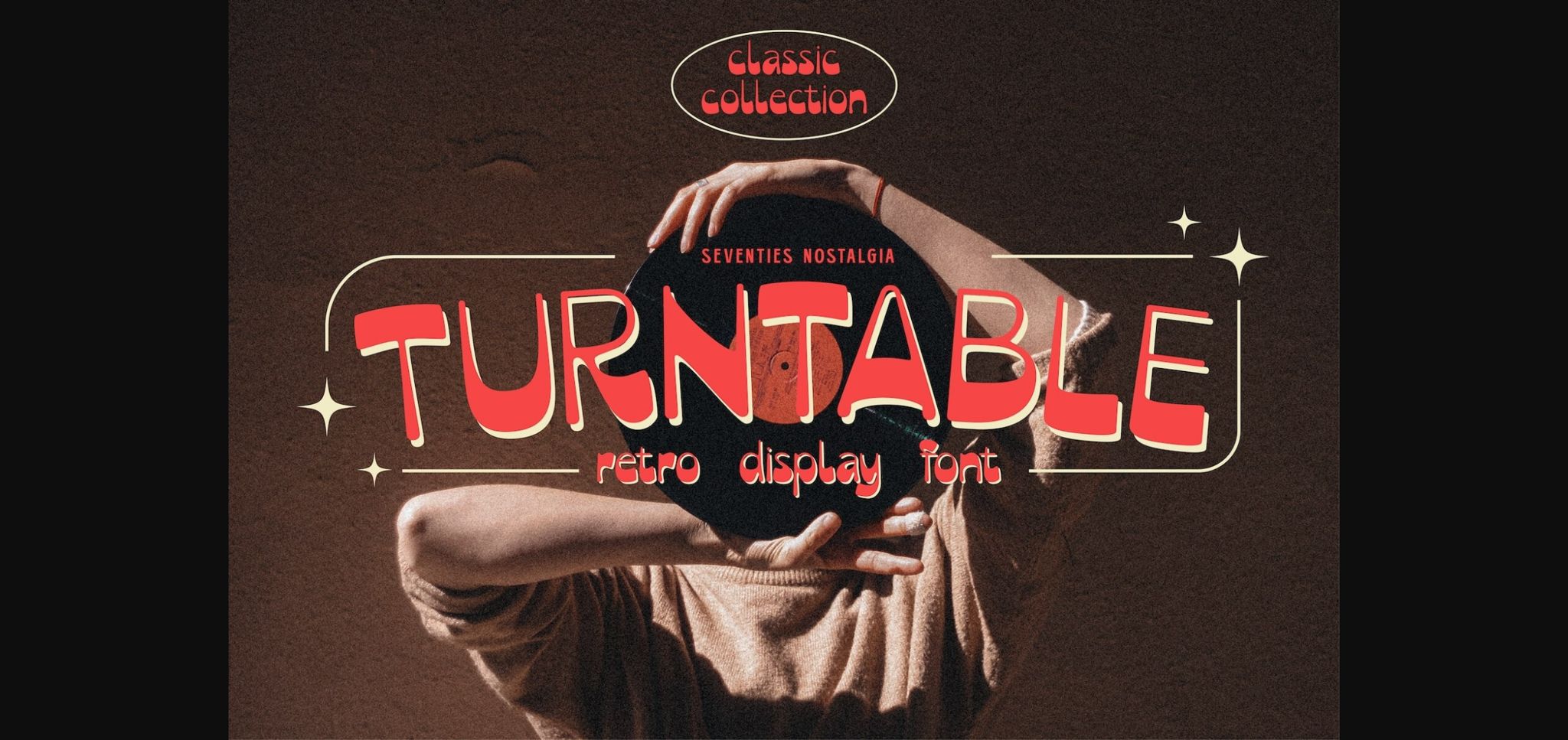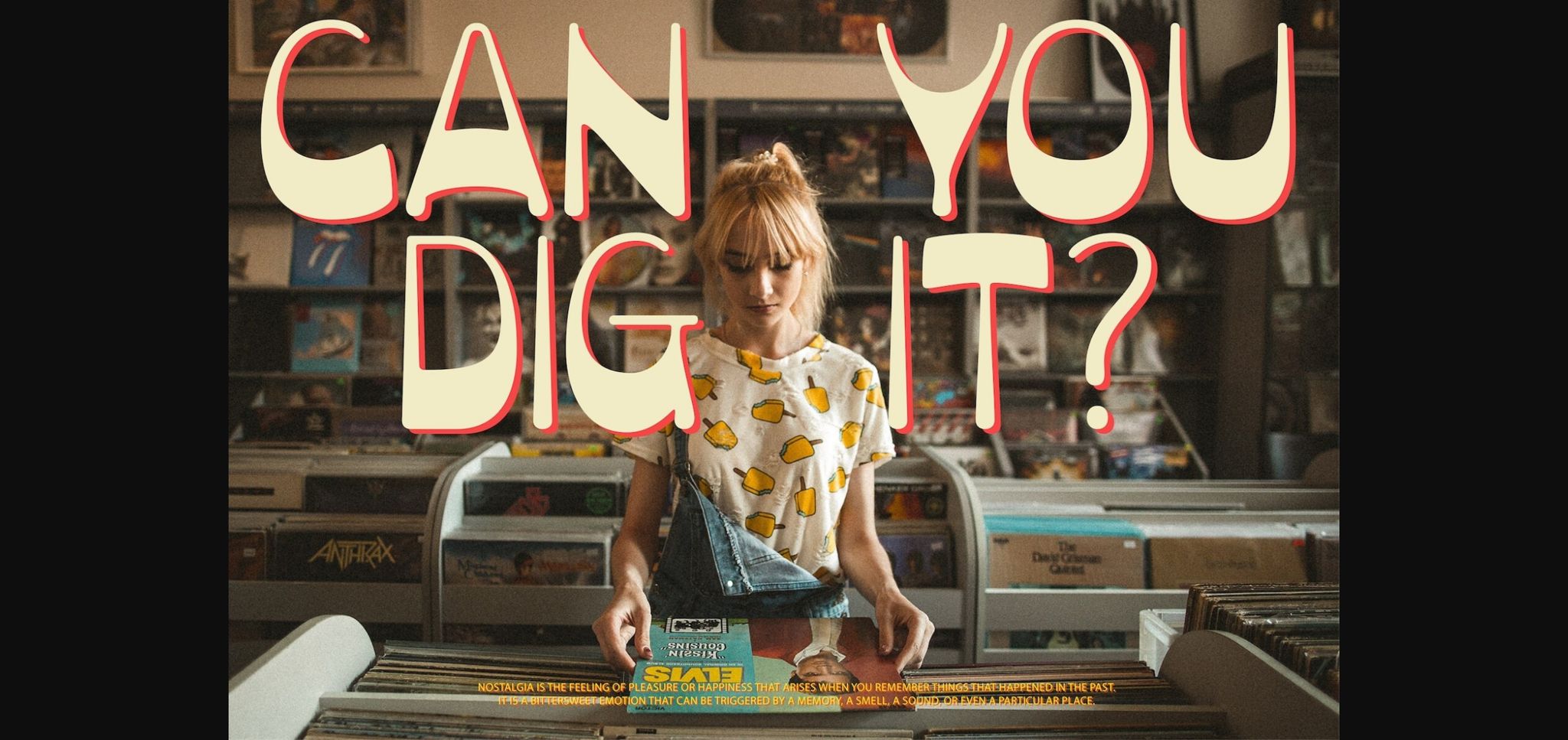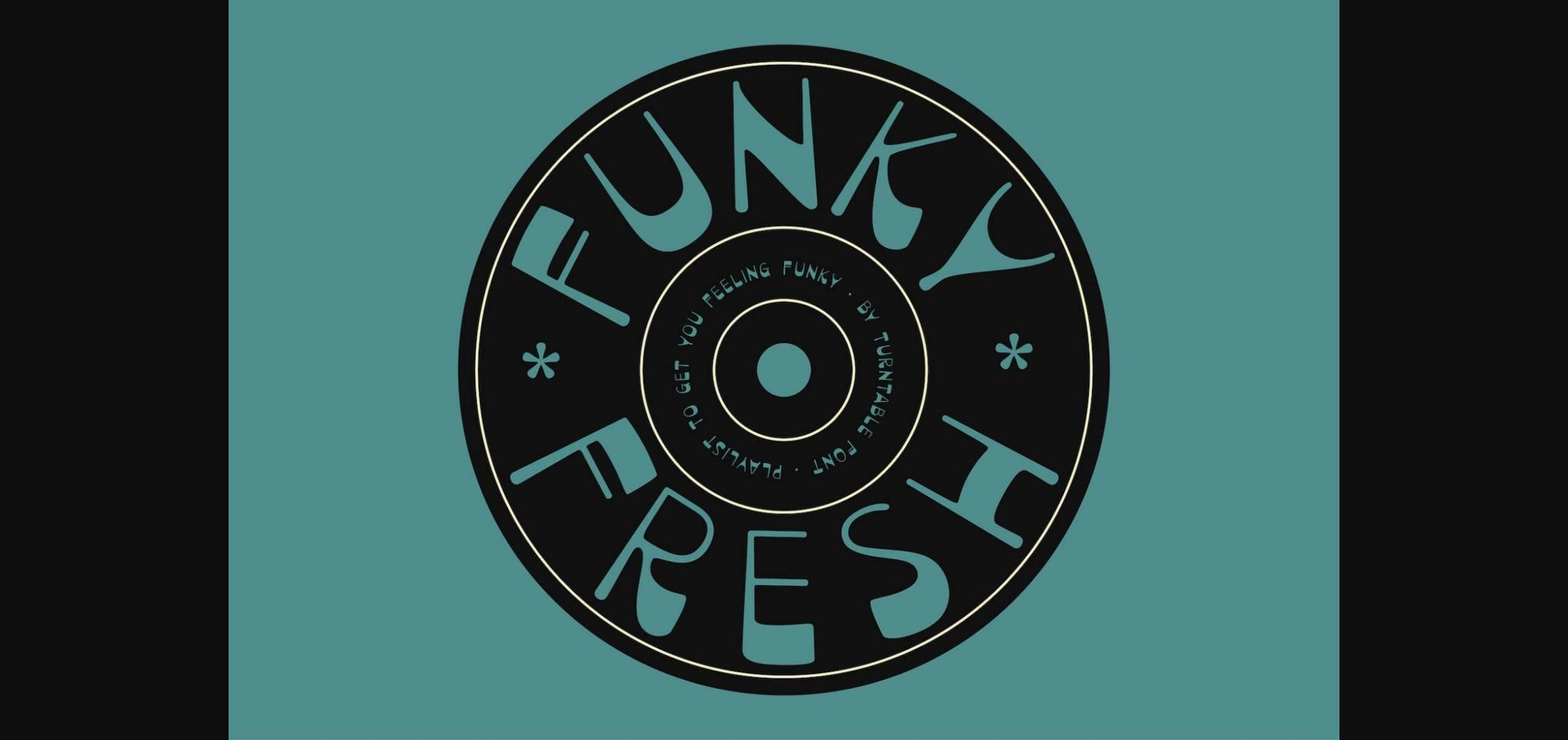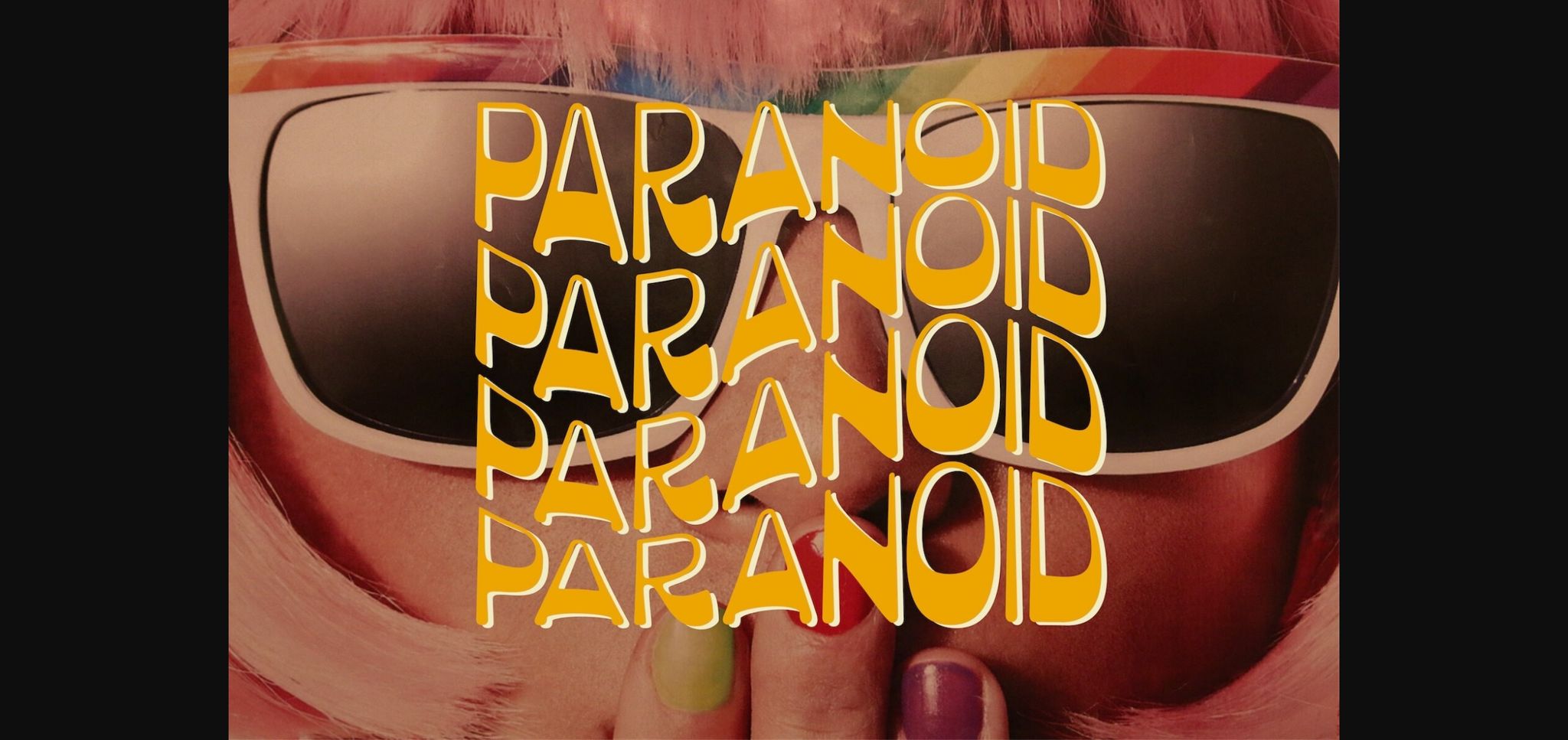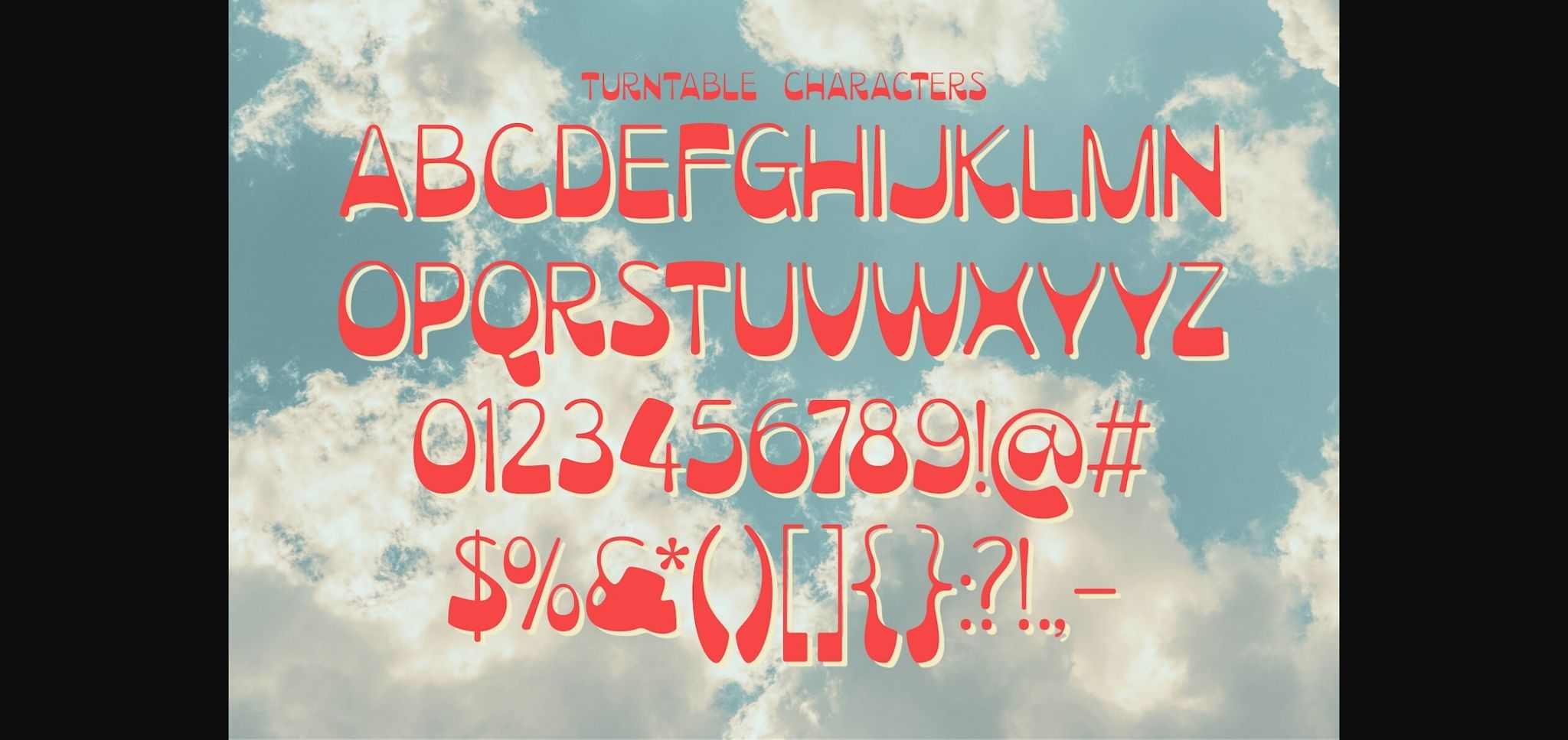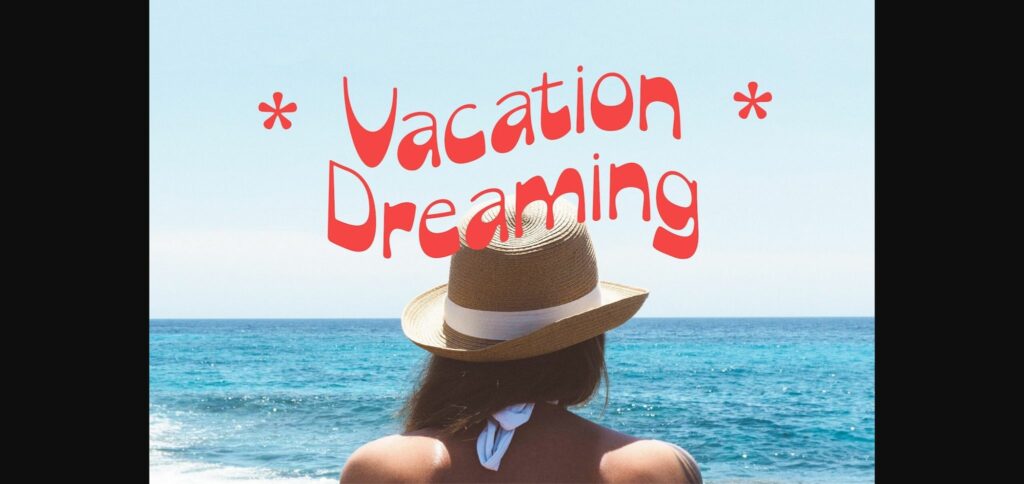
Turntable Font
About Turntable Font
Turntable is an eye-catching reverse contrast retro display font. It’s throwback design is right at home in vintage themed designs.
Turntable is super funky and is perfect for large scale use as a headline font, or for things like logo design, social content & advertising.